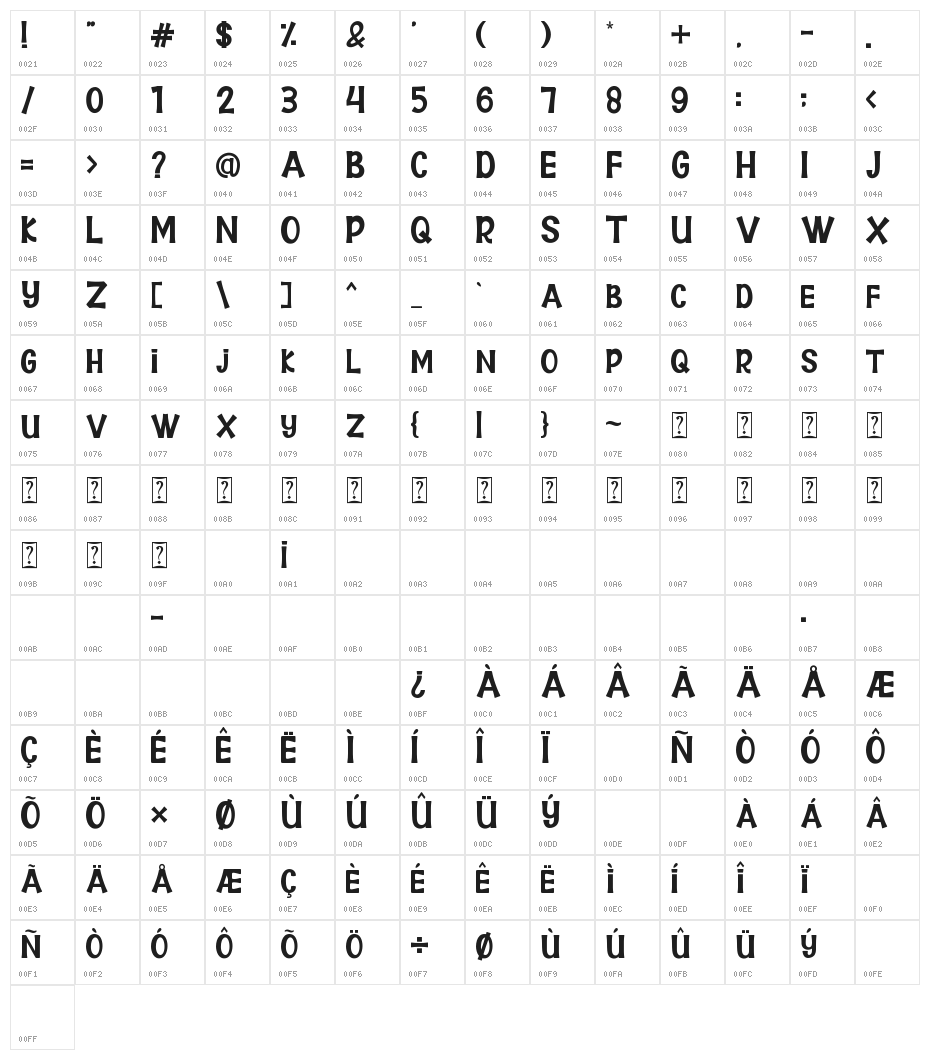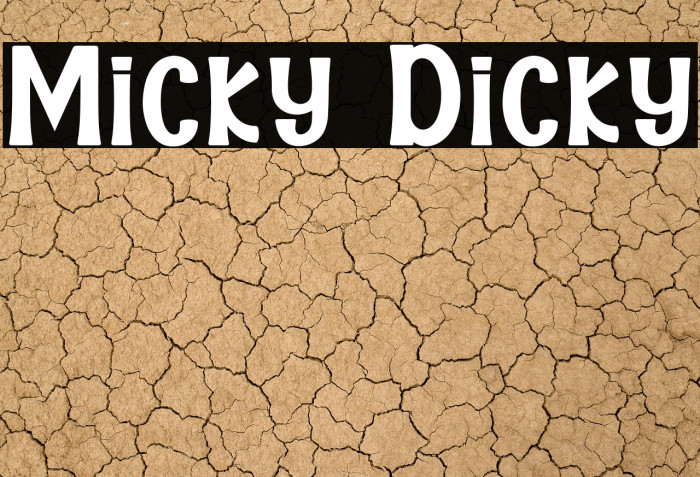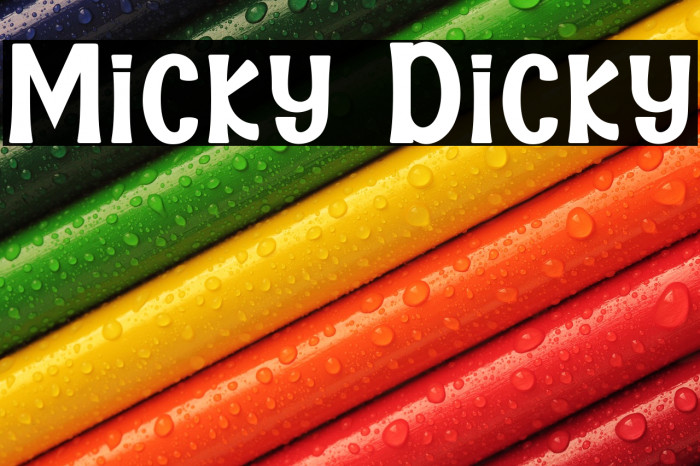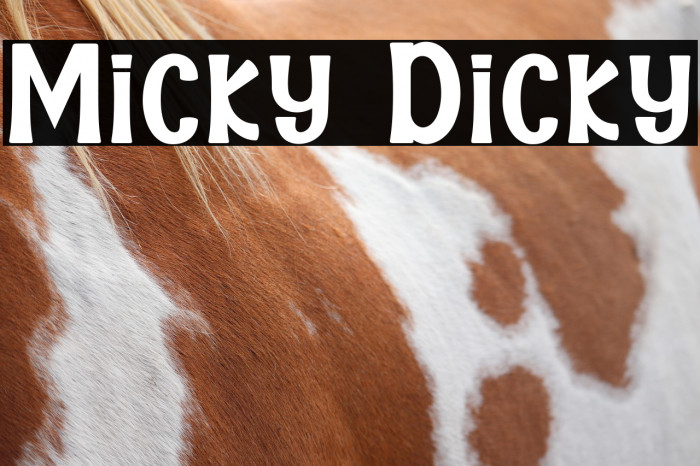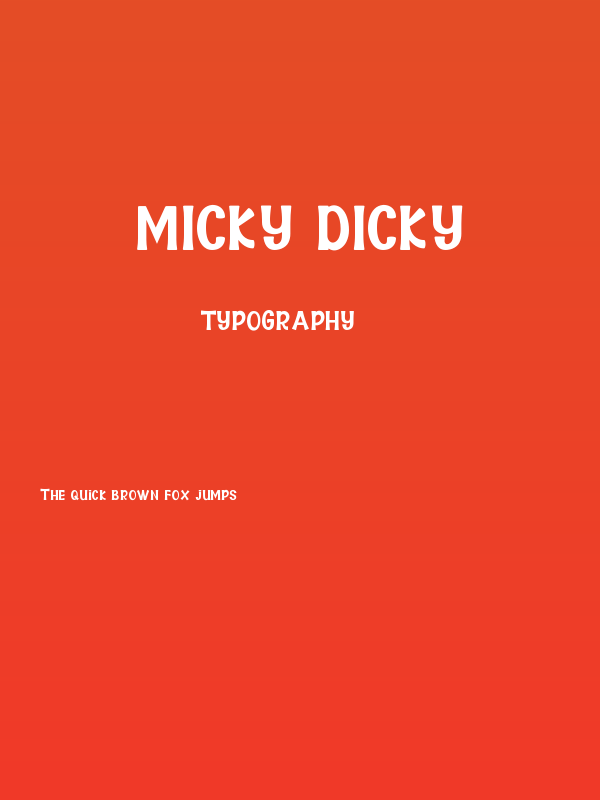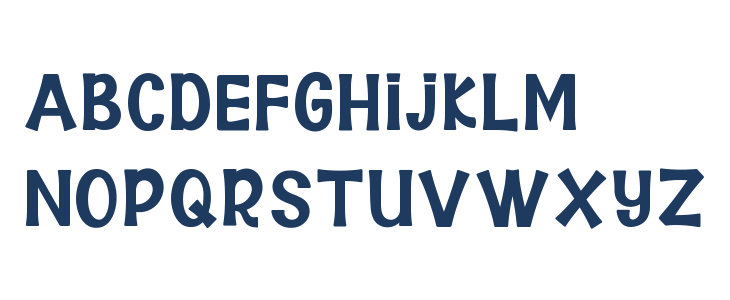
Micky Dicky Font
Micky Dicky Description
This font features a playful and whimsical design, characterized by its bold and slightly irregular letterforms. The uppercase and lowercase letters exhibit a hand-drawn quality, with varying stroke widths that add a dynamic and lively feel. The numbers and special characters maintain this playful aesthetic, making the font suitable for creative and informal applications. The overall appearance is both eye-catching and approachable, ideal for projects that require a touch of fun and personality.
| Overall Style | Playful, Whimsical |
| Proposed Projects | Ideal for children's books, playful branding, event invitations, and creative posters. |